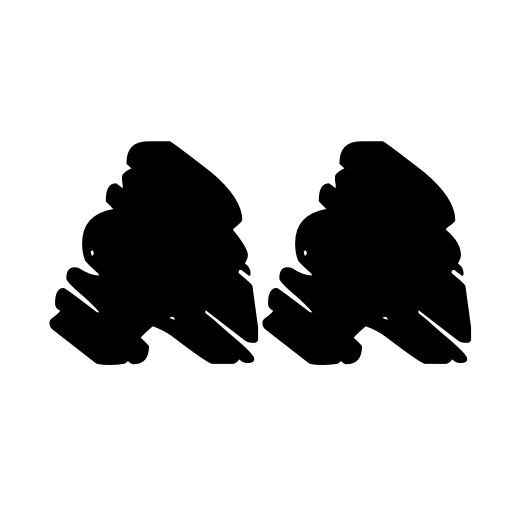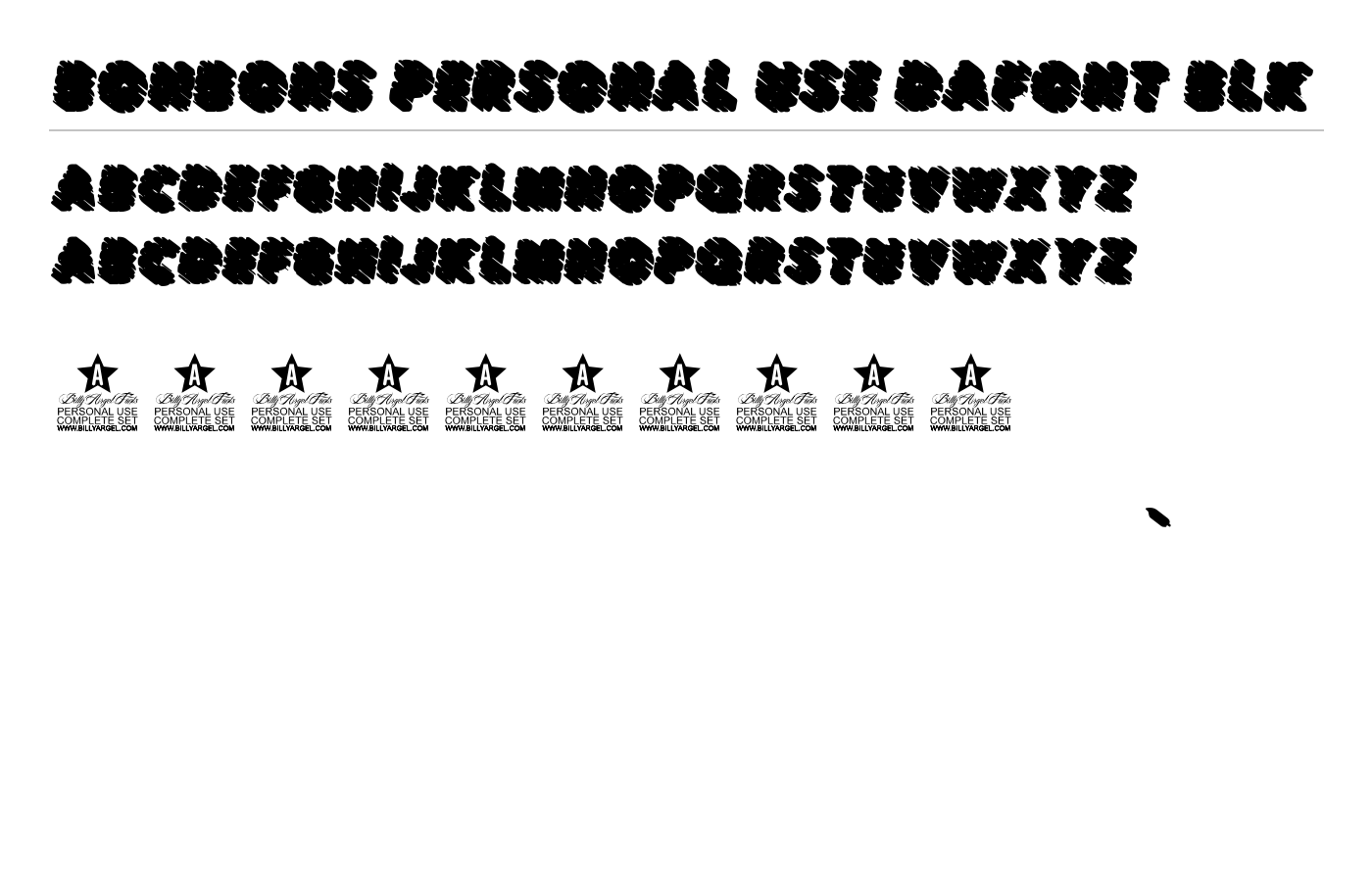
Bonbons Personal Use is a bold, playful display font with a chunky, irregular texture that resembles hand-drawn brush strokes or clustered shapes. Its uppercase and lowercase letters share a lively, dense appearance, making it perfect for eye-catching headlines, fun branding, and creative projects that benefit from a quirky, informal style. This font works best when used large and sparingly, adding energetic personality to posters, logos, and packaging with a youthful, artistic vibe.
BONBONS PERSONAL USE DAFONT
About BONBONS PERSONAL USE DAFONT